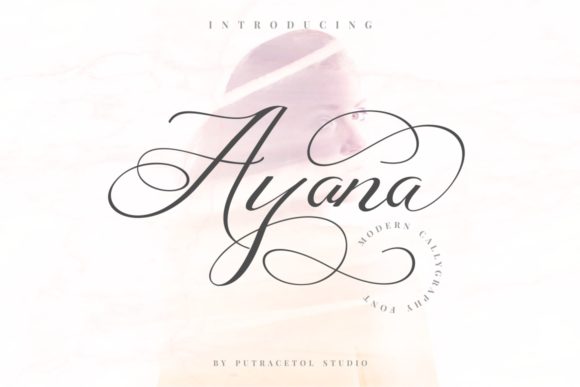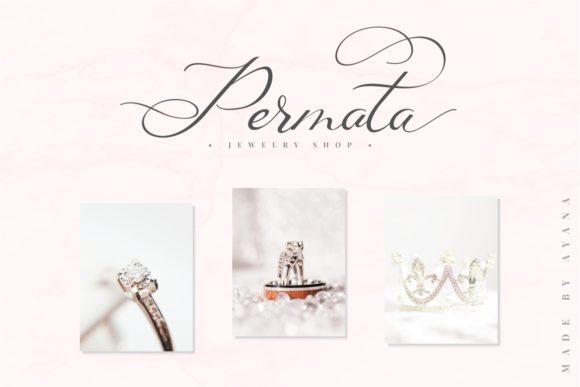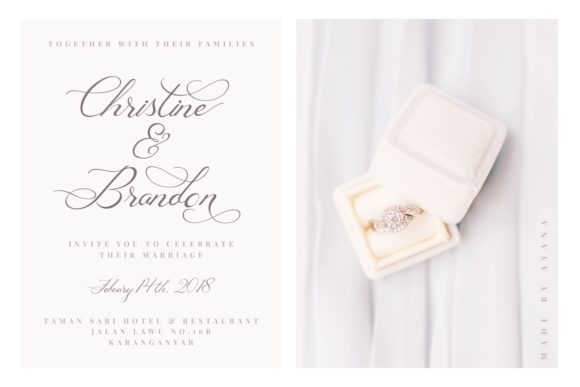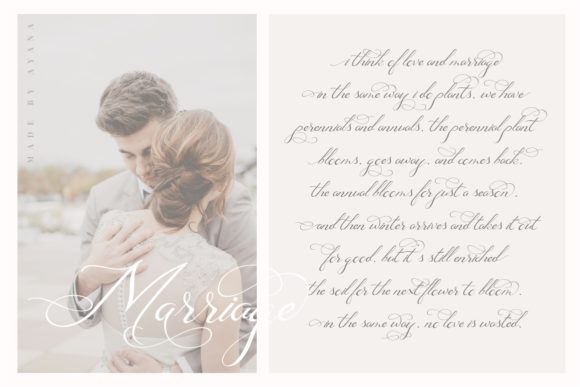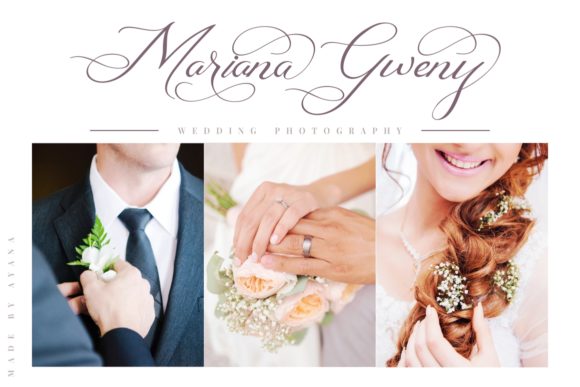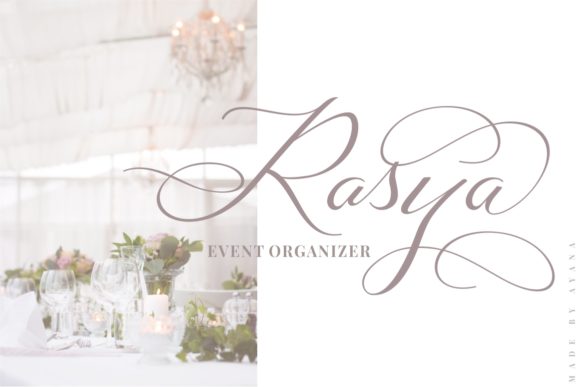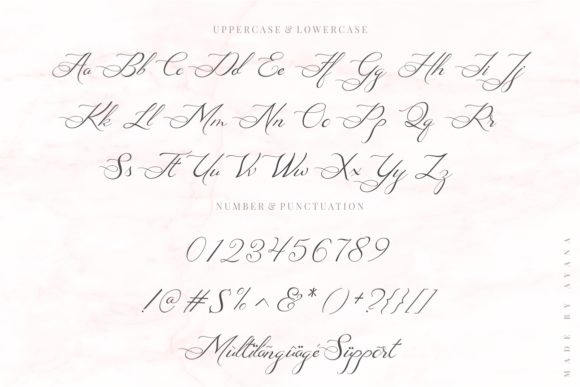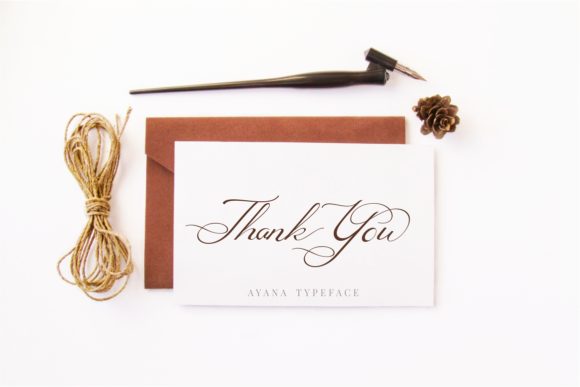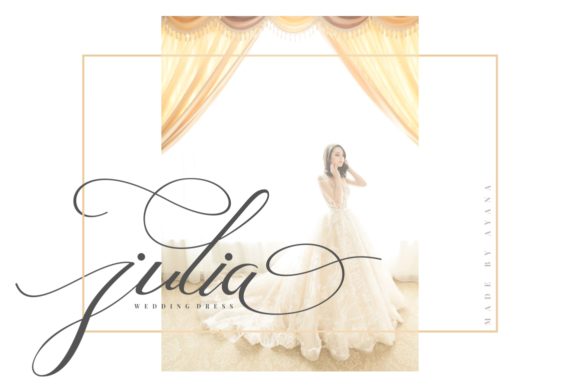
Ayana Font
About Ayana Font
The Ayana is a modern calligraphy font with a luxurious touch. It’s feminine, elegant, messy, and modern.
Perfect for branding, wedding invites and cards, elegant logos, posters, packaging, stationery, websites, and much more!